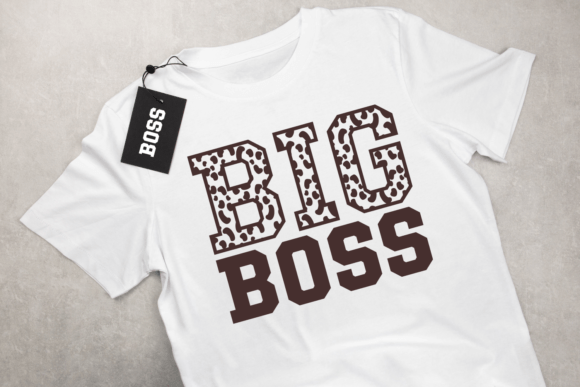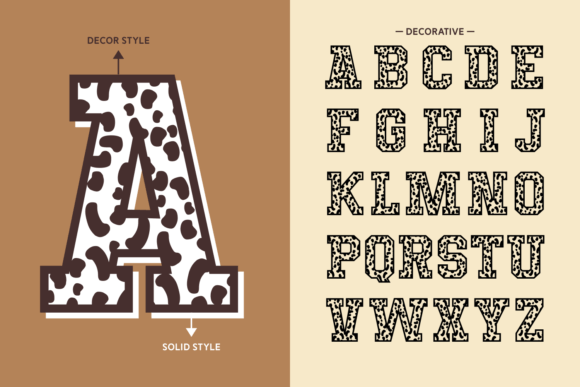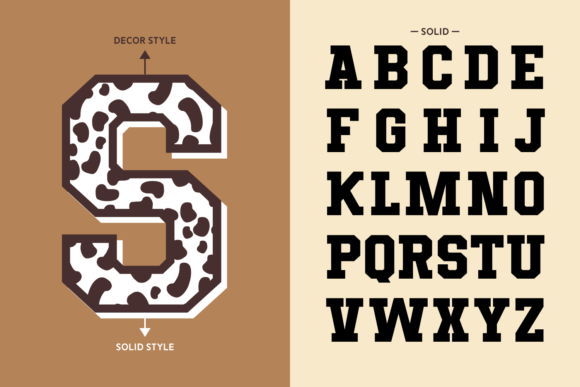
Leopard Team Font
About the Leopard Team Font
Get ready to be inspired by Leopard Team Font, a fresh and dynamic typeface for modern creators. Leopard Team is a captivating decorative font that effortlessly combines elegance with a touch of wildness. Each letter is beautifully designed with intricate leopard spots, adding a unique and eye-catching element to your text. Whether you’re looking to make a bold statement or add a playful touch to your designs, Leopard Team is the perfect choice. With its distinctive style, this font is sure to leave a lasting impression and bring a touch of untamed beauty to any project.
Leopard Team’s bold and playful personality makes it ideal for headlines, logos, short text blocks on packaging, and posters requiring a touch of the dramatic. Its decorative nature, however, limits its effectiveness in body text or UI elements where readability is paramount. Long paragraphs set in Leopard Team would be visually overwhelming and difficult to read.
This font pairs well with clean, modern sans-serif fonts like Open Sans or Lato for a balanced contrast. For a more luxurious feel, consider pairing it with a classic serif like Garamond or a subtly elegant script font such as Allura. These pairings temper the boldness of Leopard Team, allowing it to shine as an impactful accent.
Its inherent energy makes it particularly suitable for brands targeting younger demographics or those promoting adventurous products or services. Avoid using it for projects demanding sophistication or understated elegance.